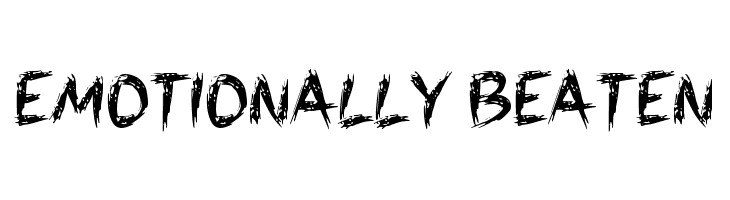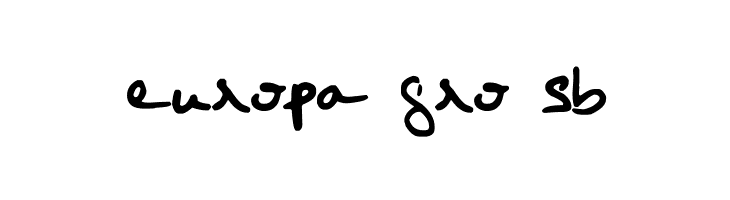
A playful, hand-drawn font with tall, slender characters and a modern look.
A sketch-like, hand-drawn decorative font with an artistic and textured appearance.
A bold, geometric stencil font with rounded shapes and a modern aesthetic.
A technical symbol font with electrical and appliance icons.
A bold, distressed font with a grunge, textured appearance.
An elegant, flowing script font with decorative uppercase and fluid lowercase letters.
A sophisticated serif font with elegant curves and flared serifs.
A bold, playful handwritten font with thick strokes and a casual style.